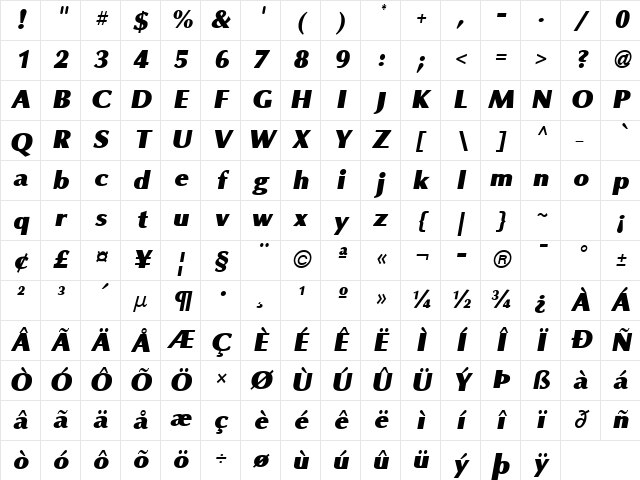
Omni Italic Free Font
Omni Italic
Design Context for Omni
Omni is a composed and adaptable typeface that performs quietly and consistently across a wide range of design contexts. The slanted form adds forward momentum and visual energy.
Pro Tip: Use Omni for emphasis, pull quotes, and subheadings where its slanted energy can add rhythm to the layout.